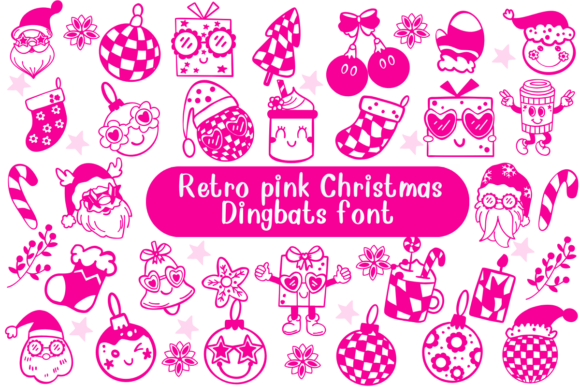
Retro Punk Christmas Font: A Fun and Festive Dingbat Font for Holiday Designs
Are you looking for a unique and eye-catching way to add a retro touch to your holiday designs? Look no further than the Retro Punk Christmas font, a fun and festive dingbat font filled with vintage Christmas symbols. This font is perfect for creating holiday cards, decorations, and festive designs that are sure to stand out.
What is Retro Punk Christmas Font?
Retro Punk Christmas is a dingbat font that features a collection of vintage Christmas symbols, including old-fashioned ornaments, classic Santa images, Christmas trees, and vintage lights. Each letter of the alphabet brings up a different retro holiday icon, making it easy to add a touch of nostalgia to your designs.
Key Features of Retro Punk Christmas Font
- Vintage Christmas symbols: The font features a wide range of vintage Christmas symbols, including ornaments, Santas, Christmas trees, and lights.
- Retro style: The font has a fun and retro vibe that’s perfect for adding a touch of nostalgia to your designs.
- Dingbat font: The font is a dingbat font, which means that each letter brings up a different symbol or icon.
Uses for Retro Punk Christmas Font
Retro Punk Christmas font is perfect for a wide range of holiday designs, including:
Holiday Cards
Create unique and eye-catching holiday cards with Retro Punk Christmas font. You can use the font to add vintage-style ornaments, Santas, and Christmas trees to your cards.
Decorations
Add a touch of retro flair to your holiday decorations with Retro Punk Christmas font. You can use the font to create vintage-style signs, banners, and other decorations.
Festive Designs
Retro Punk Christmas font is perfect for creating festive designs, such as holiday posters, flyers, and brochures. You can use the font to add vintage-style Christmas symbols and icons to your designs.
Tips for Using Retro Punk Christmas Font
Here are a few tips for using Retro Punk Christmas font:
Experiment with Different Colors
Retro Punk Christmas font looks great in a wide range of colors, so don’t be afraid to experiment. Try using bright, bold colors to add a pop of color to your designs.
Mix and Match Symbols
One of the best things about Retro Punk Christmas font is that each letter brings up a different symbol or icon. Try mixing and matching different symbols to create unique and eye-catching designs.
Use with Other Fonts
Retro Punk Christmas font looks great when used with other fonts. Try pairing it with a bold, modern font to create a fun and contrasting look.
Retro Punk Christmas font is a fun and festive dingbat font that’s perfect for adding a touch of retro flair to your holiday designs. With its vintage Christmas symbols and easy-to-use design, it’s the perfect font for creating holiday cards, decorations, and festive designs. So why not give it a try and see what kind of amazing designs you can create?